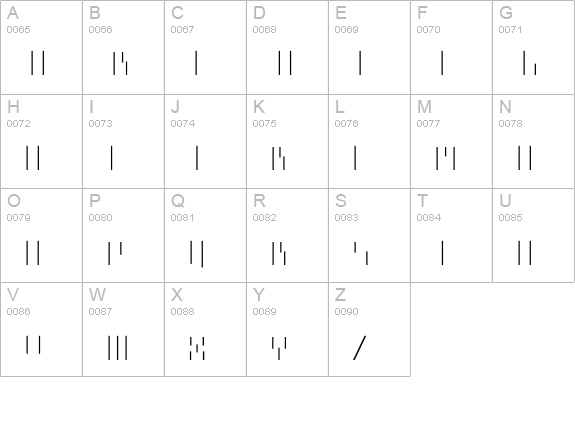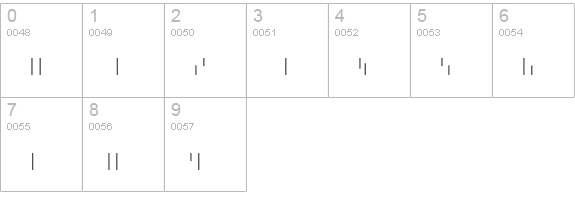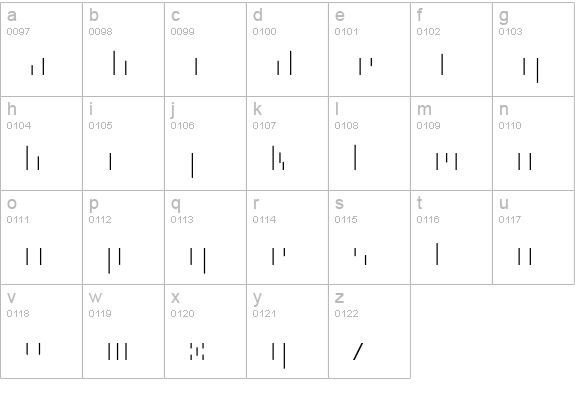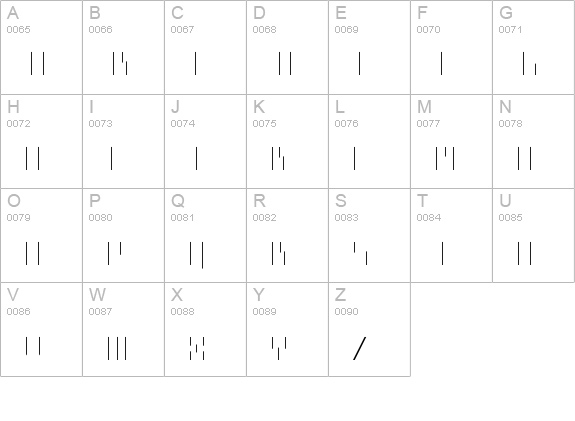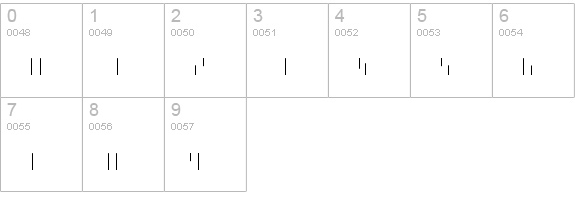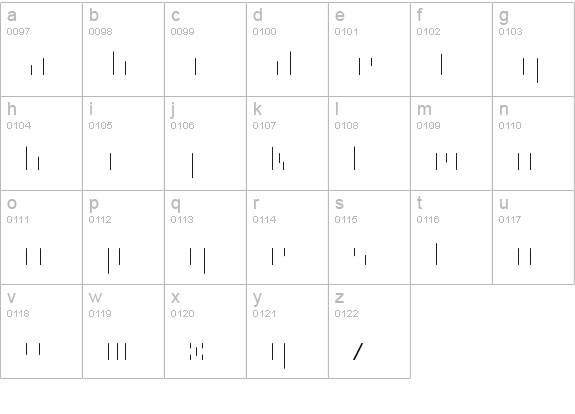
Introducing the exquisite Minimum-BichroClairVertical font, a sleek and modern typeface that exudes elegance and sophistication. With its clean lines and minimalist design, this font is perfect for adding a touch of contemporary flair to any project. The unique vertical orientation of the characters adds a dynamic visual element that sets this font apart. Best of all, Minimum-BichroClairVertical is completely free to download at FontsMarket.com. Whether you're working on a branding project, designing a website, or creating eye-catching graphics, this versatile font is sure to make a statement. Don't miss out on the opportunity to enhance your designs with the stunning Minimum-BichroClairVertical font – download it for free today at FontsMarket.com.